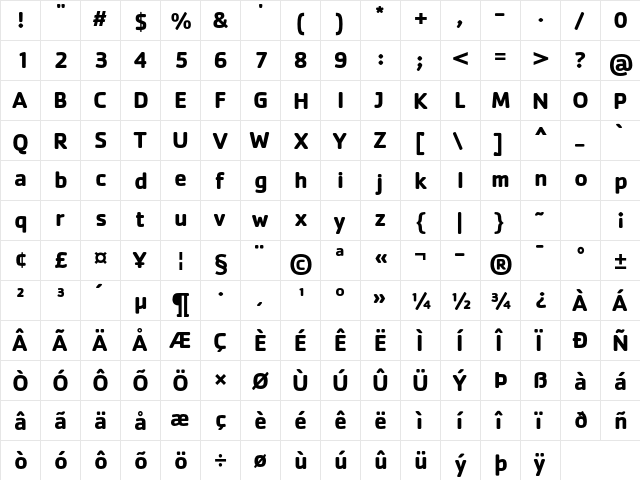
Cachet Std Bold Font Preview
Cachet Std Bold
Design Context for Cachet Std Typeface
Cachet Std is a composed and adaptable typeface that performs quietly and consistently across a wide range of design contexts. The heavy weight commands attention and anchors typographic hierarchies.